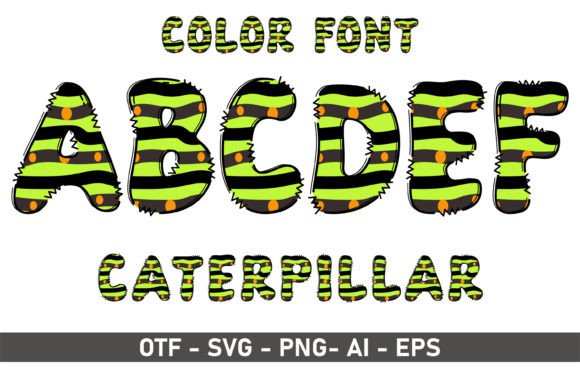
Dive into a world where imagination takes flight, and every letter becomes a delightful adventure. Introducing the Caterpillar Font, a vibrant and enchanting font family designed to capture the essence of childhood wonder and bring a touch of whimsy to your creative projects.
With its playful and artistic flair, the Caterpillar Font is perfect for adding a pop of color and cheer to any design. Whether you're creating children's books, posters, invitations, greeting cards, or any other project that calls for a fun and captivating font, the Caterpillar Font is the perfect choice.
Picture this: a vibrant children's book, filled with whimsical characters and magical landscapes, brought to life by the Caterpillar Font. Each letter dances off the page, brimming with personality and charm, creating an immersive reading experience that captivates young minds.
Or, envision an eye-catching poster adorned with the Caterpillar Font, its playful curves and vibrant hues commanding attention from across the room. Whether announcing a school fair, a birthday party, or a special event, the Caterpillar Font ensures your message shines with joy and excitement.
The Caterpillar Font is not just a collection of letters; it's an invitation to let your creativity soar and explore the boundless realm of imagination. With its diverse range of styles, from bold and playful to delicate and charming, the Caterpillar Font adapts seamlessly to your creative vision, allowing you to express yourself in unique and captivating ways.
So, embrace the magic of the Caterpillar Font, let your imagination run wild, and create designs that ignite smiles and spark endless wonder. Dive into a world of creativity and enchantment, where every letter tells a story, and every project becomes a masterpiece.